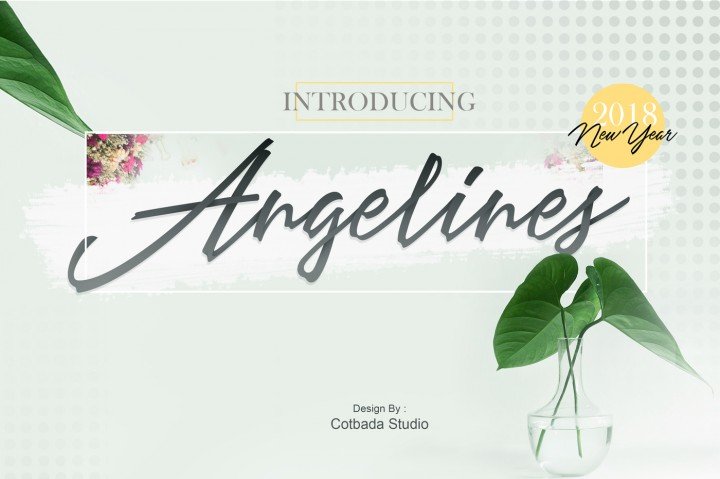
Angelines Script Font
Introducing Angelines. It is designed by Cotbada_studio, this is a premium font, are sold on creativemarket, but it was great, it is free today for download. Angelines Font, a handmade font awesome, new fresh & modern script with a calligraphy style. Can used for anything from promotional material and handwritten quotes, to product packaging, labels,logo newsletters, posters, merchandise and branding projects.